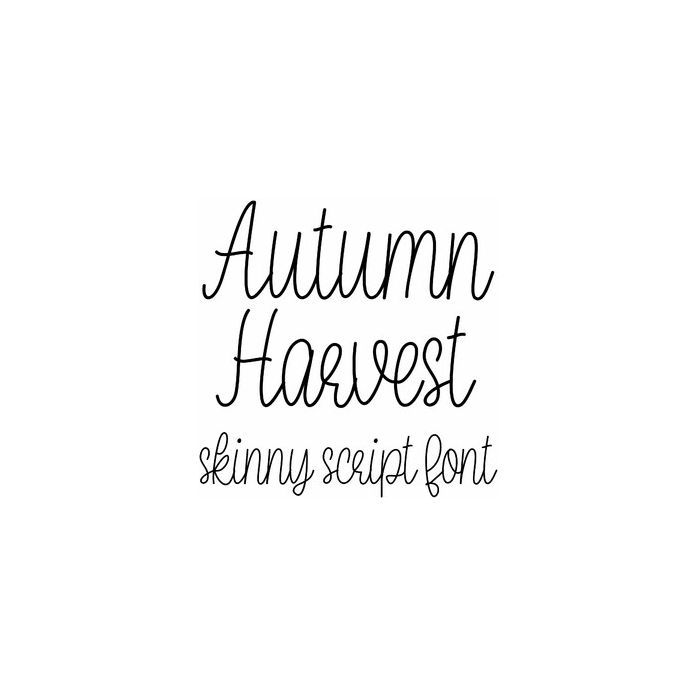
Autumn Harvest Skinny Script is a simple cursive handwriting font, cute for holiday crafts, cards, notes, planners, and personalization projects. Includes alphabet, numbers, and punctuation.